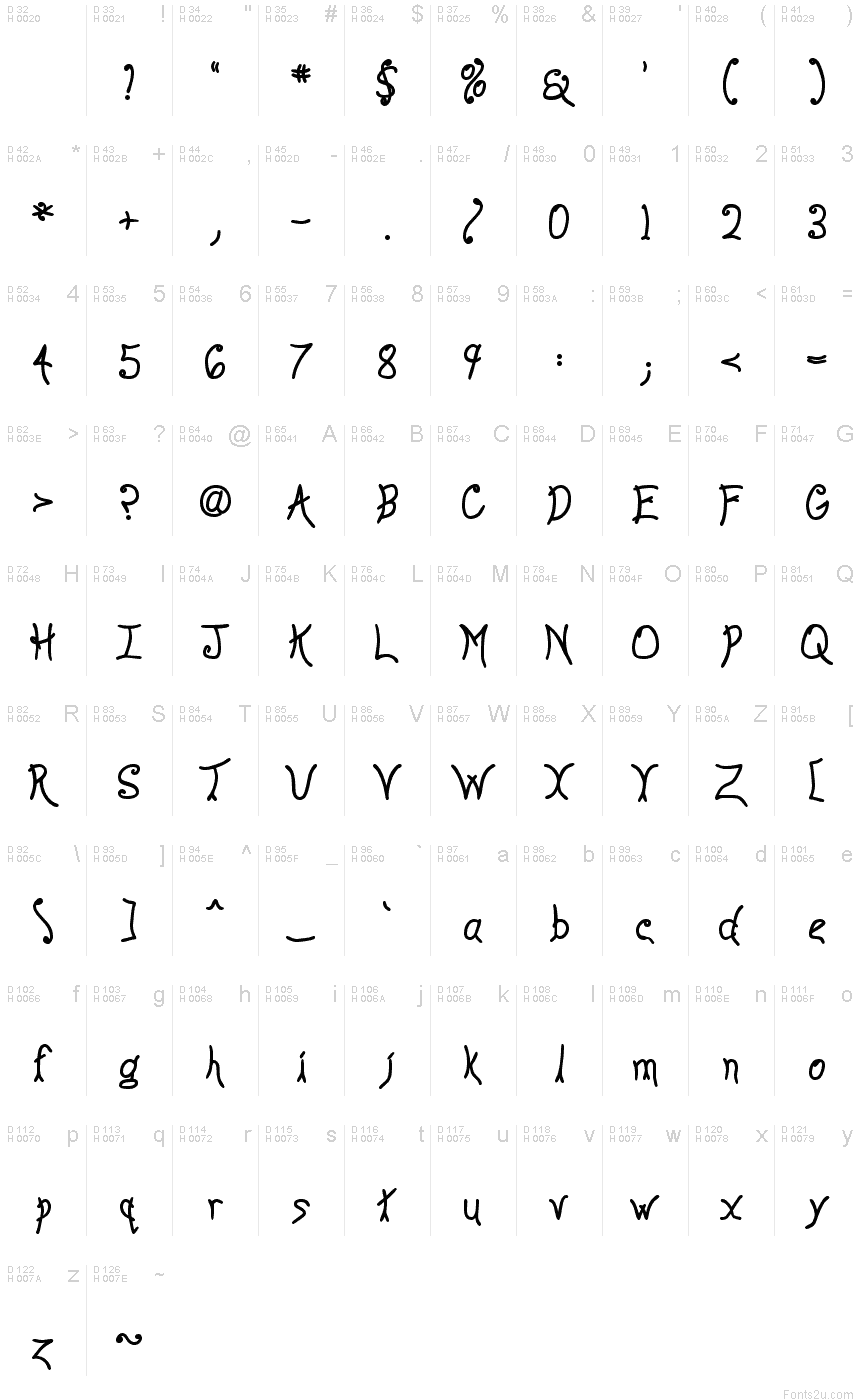
Anyway Bold
Anyway Bold font by UnAuthorized Type is a free handwritten font with a chunky, marker-style stroke and an easygoing rhythm that feels like a quick note from a friend. Letters wobble just enough to feel human, with playful curves and that quirky crossed “x” giving the Anyway family its signature charm. The bold weight makes every word feel confidently scrawled, as if it’s been written in thick, inky lines on a whiteboard or sketchbook page.
Using Anyway Bold, this free font shines on thumbnails, casual logos, quote graphics, zines, kids’ projects, and friendly UI labels where you want warmth without losing legibility. Its loose spacing keeps text airy and approachable, even at larger sizes. Pair this handwritten typeface with a clean geometric sans for body copy, and let Anyway Bold handle headings, labels, and short bursts of personality.